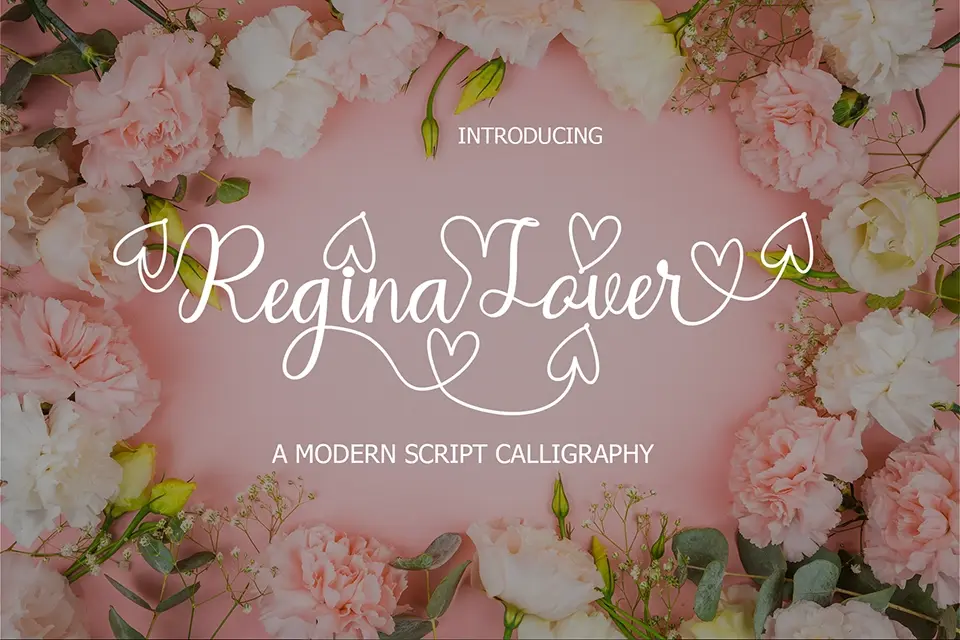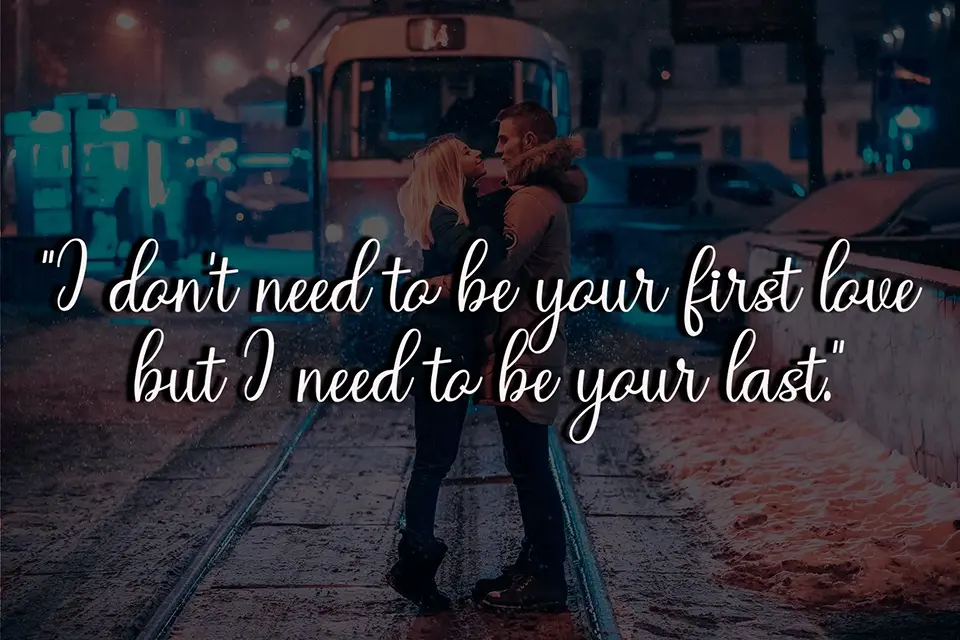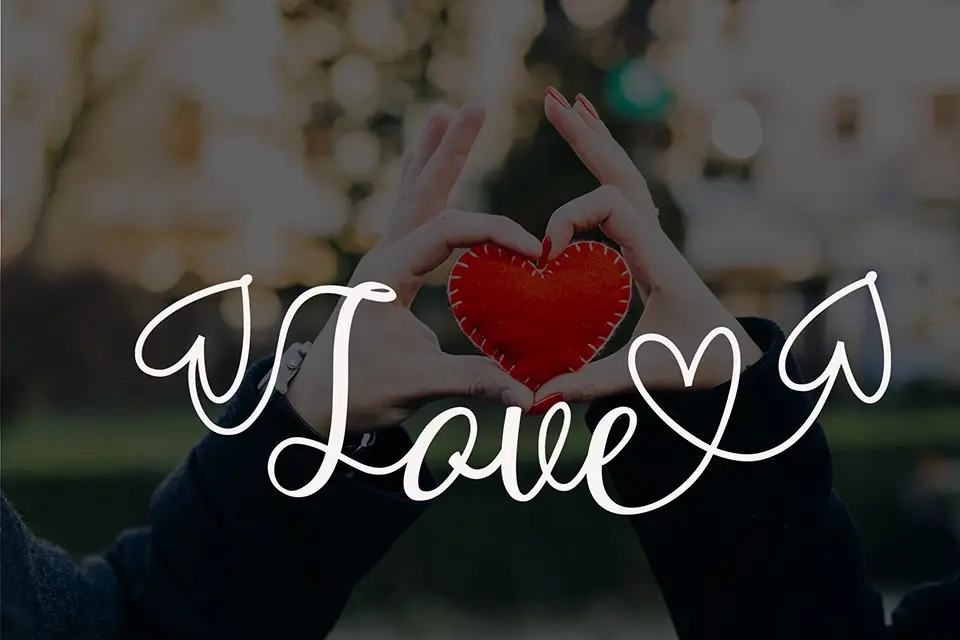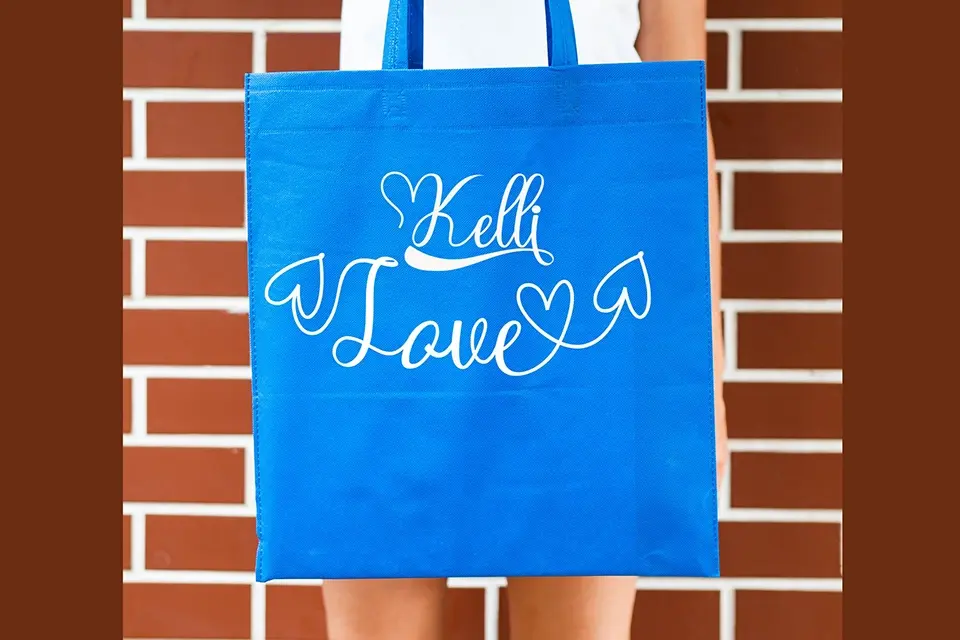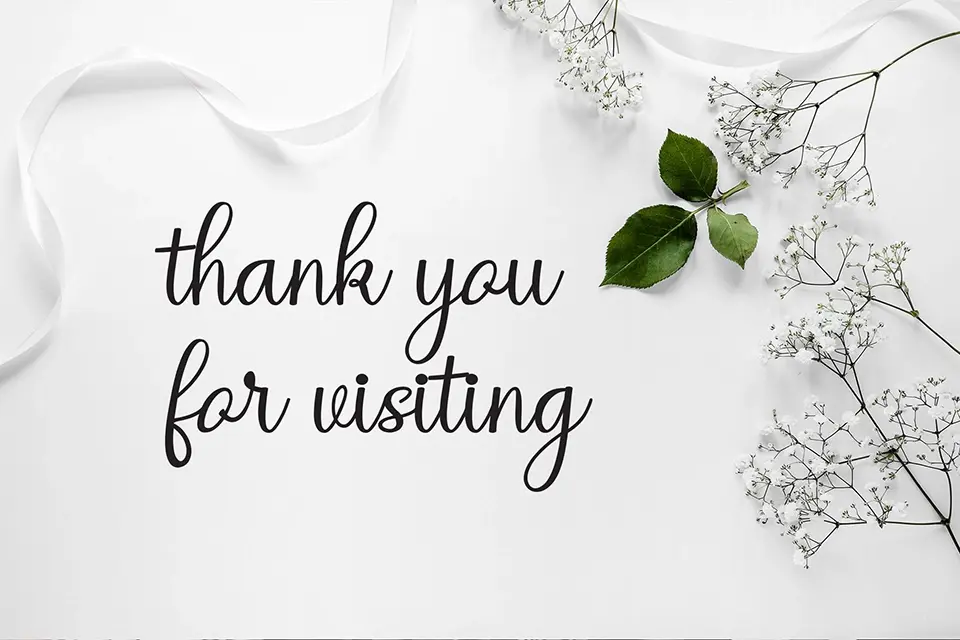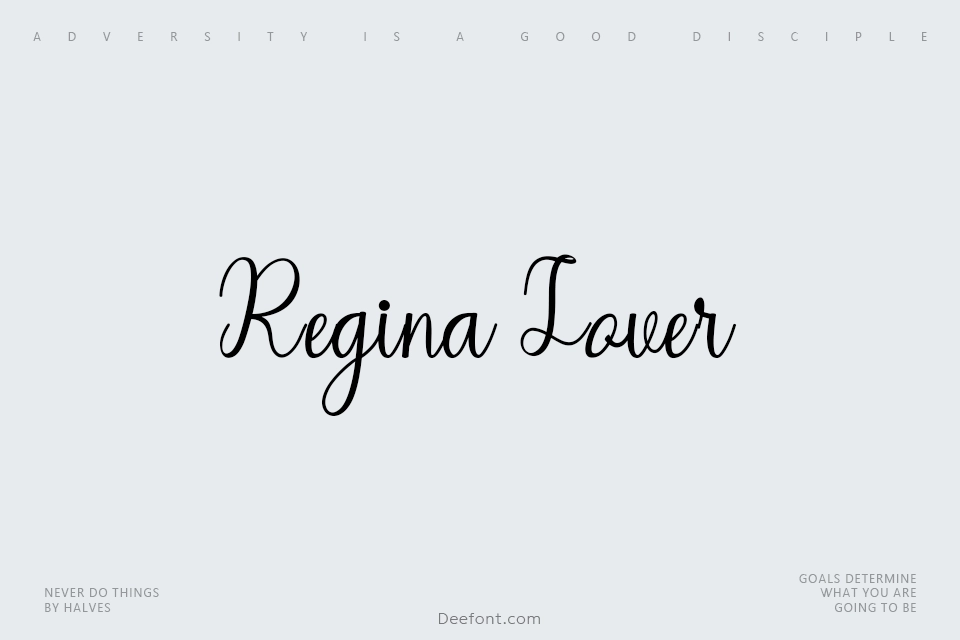
Regina Lover Font
Regina Lover is an elegant and expressive script font that brings sophistication to your design projects. Featuring smooth, flowing letterforms with a handwritten touch, this typeface is perfect for wedding invitations, branding, greeting cards, and decorative typography. The font's delicate curves and refined strokes create a feminine and romantic aesthetic, making it an excellent choice for designers seeking to add a personal and artistic flair to their creative work.